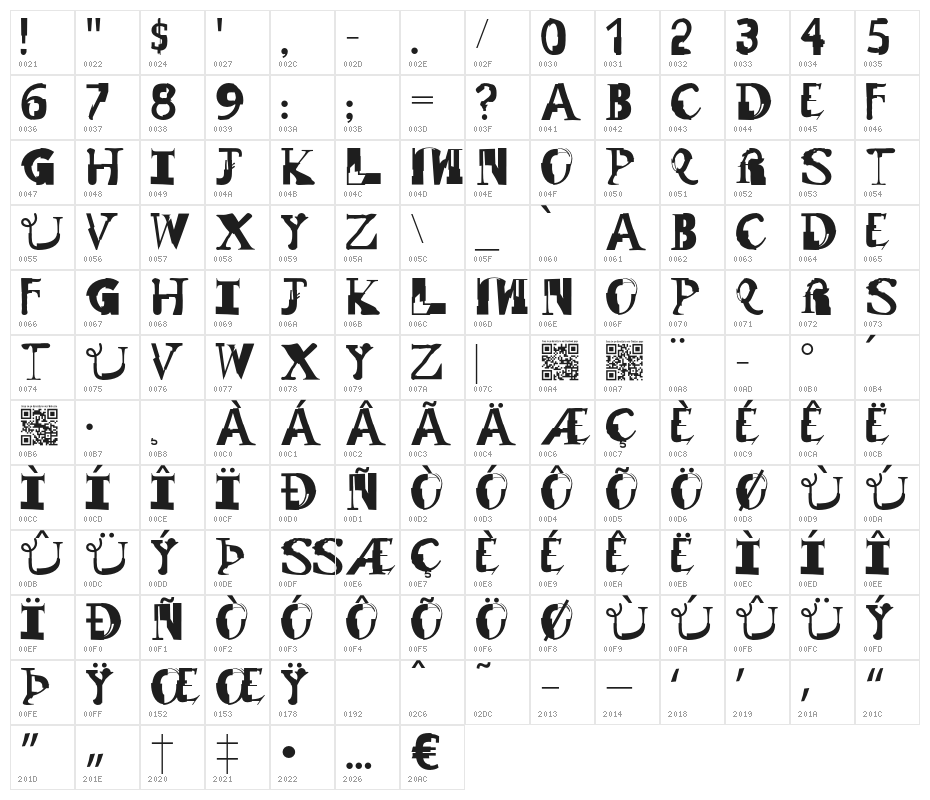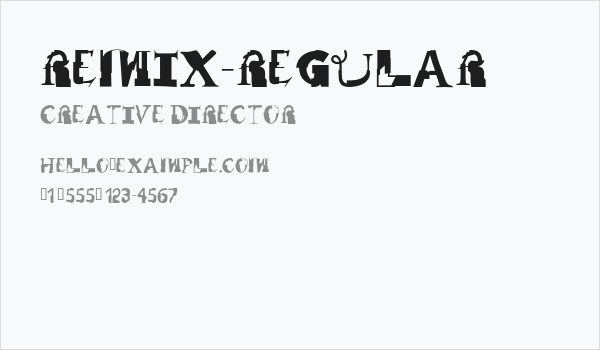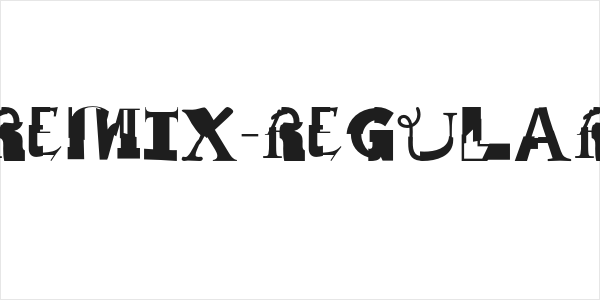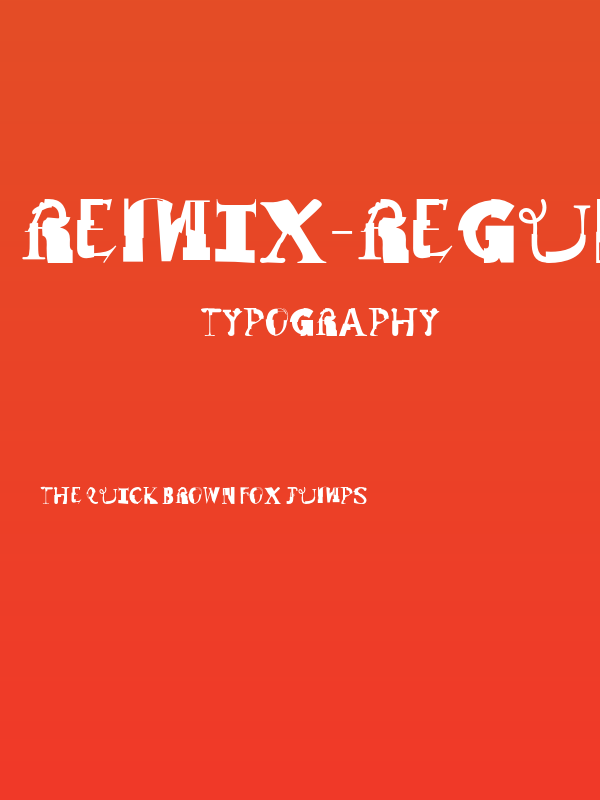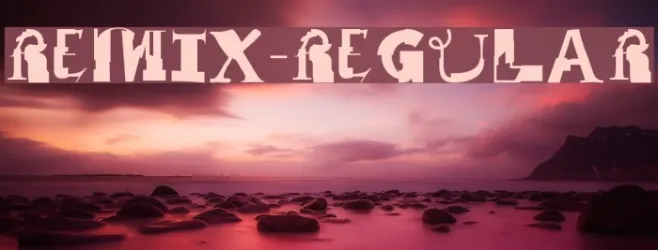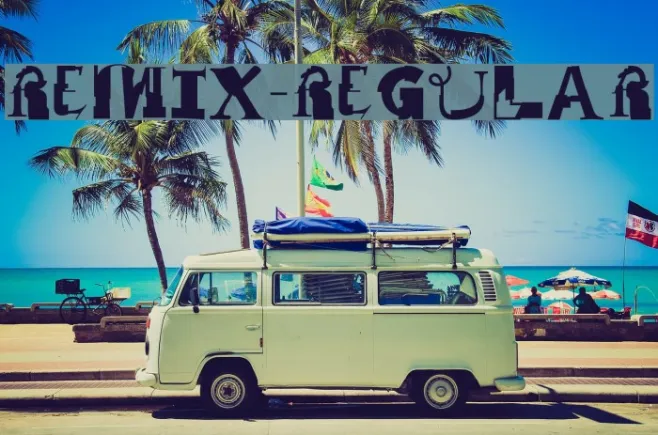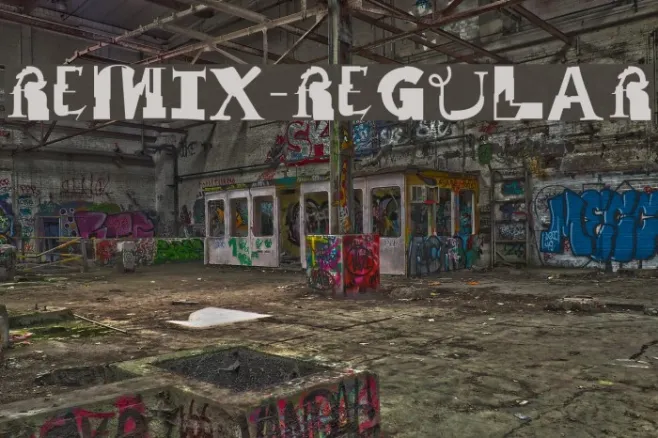
Remix-Regular Font
Remix-Regular Description
This font presents a unique and artistic style, characterized by its bold and fragmented letterforms. Each character appears as if it has been creatively deconstructed and reassembled, giving it a dynamic and edgy appearance. The uppercase and lowercase letters maintain a consistent design approach, with sharp angles and unexpected cuts that create a sense of movement and energy. The numbers and special characters follow the same aesthetic, ensuring a cohesive look across all glyphs. This font is perfect for projects that require a bold statement and a modern, unconventional touch.
| Proposed Projects | Ideal for album covers, posters, branding for edgy or modern products, and any project that aims to stand out with a bold visual statement. |